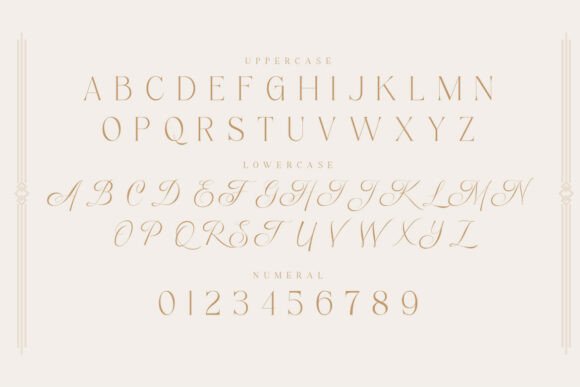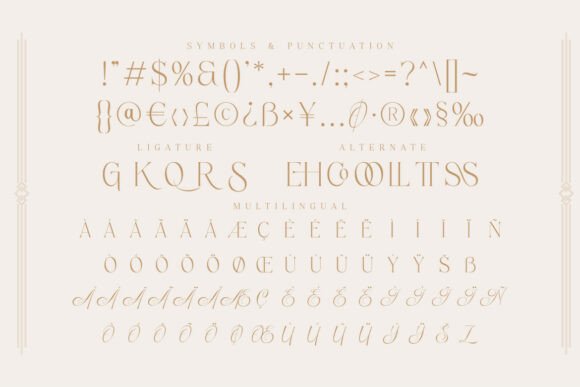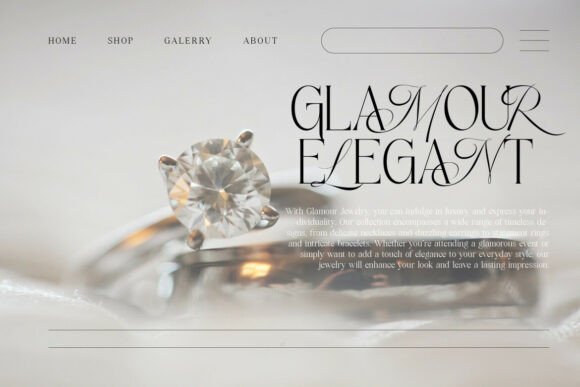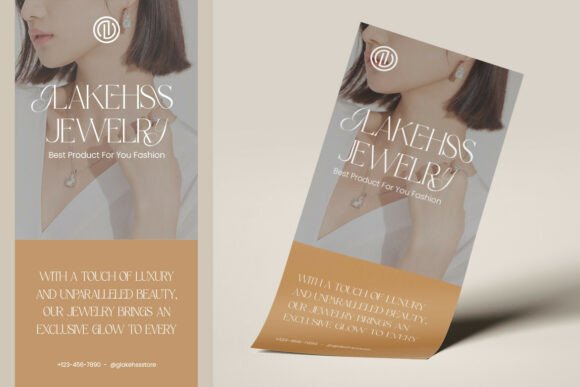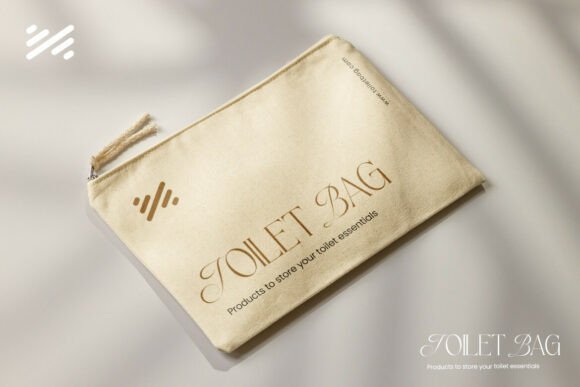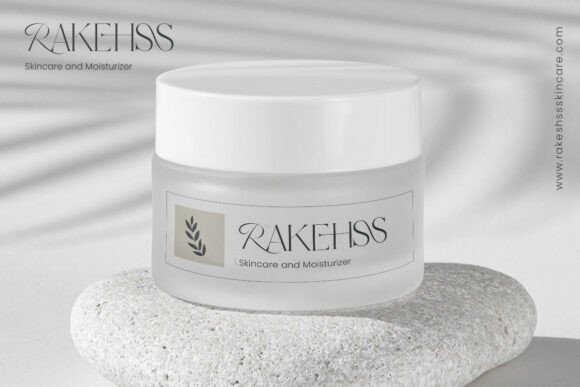
The Golden Compass Font: A Timeless Elegance for Creative Projects
I’ll never forget the moment I stumbled upon the Golden Compass font duo. I was working on a wedding invitation project, and my client was adamant about finding the perfect combination of elegance and playfulness. As I scrolled through font after font, I felt like I was searching for a needle in a haystack. That was until I discovered Golden Compass – a refined serif and flowing script duo that instantly captured the essence of what I was looking for.
- ✨ The perfect balance of structure and elegance, making it suitable for a wide range of projects, from branding identities to wedding designs.
- ✅ The serif font delivers clean structure and readability, while the script adds soft contrast and expressive details for decorative accents.
- 💫 The duo font includes uppercase and lowercase characters, numerals, punctuation, alternates, ligatures, and multilingual support, allowing flexible typographic composition across print and digital projects.
- 🎨 The contrast between the serif and script styles can be fully appreciated when used for headlines, logos, and featured text.
- 🤔 As with any script font, it may not be the best choice for body text or long paragraphs, as it can be a bit challenging to read.
- ⚠️ Some users might find the font a bit too elegant for more casual or playful projects.
The Story Behind Golden Compass
The story behind Golden Compass is one of passion and dedication. The designer, inspired by the beauty of the natural world, set out to create a font duo that would capture the essence of elegance and sophistication. After months of research and refinement, Golden Compass was born – a timeless font duo that would become a staple in the design world.
| What is Golden Compass? | Golden Compass is a typeface combination that pairs a refined serif style with a flowing script companion. |
| What is Golden Compass suitable for? | Golden Compass is suitable for branding identities, editorial layouts, wedding designs, packaging, product labels, logos, invitations, and lifestyle visuals that require a balanced mix of structure and elegance. |
| Can I use Golden Compass for body text? | While Golden Compass can be used for body text, it is recommended to use it for headlines, logos, and featured text where its elegance and sophistication can be fully appreciated. |
| Is Golden Compass a versatile font? | Yes, Golden Compass is a versatile font duo that includes uppercase and lowercase characters, numerals, punctuation, alternates, ligatures, and multilingual support, making it suitable for a wide range of projects. |